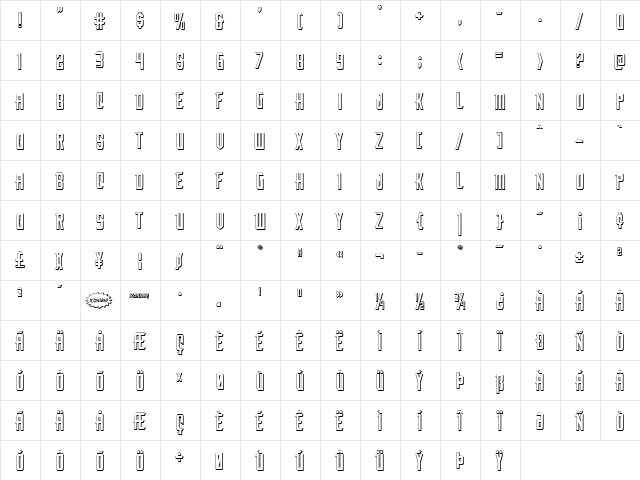
Nemesis Enforcer 3D Regular
Design Context for Nemesis Enforcer 3D Typeface
Nemesis Enforcer 3D has the bold swagger of sports branding: strong, assertive letterforms designed to dominate headlines and jerseys alike.
Built for sports team identities, athletic apparel, event posters, and high-energy promotional material.
Pro Tip: Nemesis Enforcer 3D thrives on contrast — try it large, bold, and tight against a clean background for maximum visual impact.